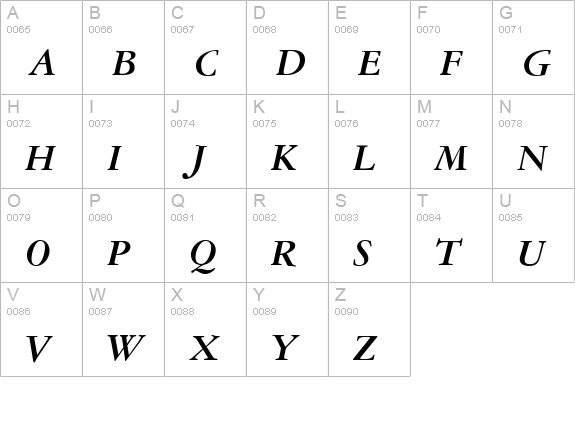
Garamond Reprise OldStyle SSi Bold Font Details
Garamond Reprise OldStyle SSi Bold is a strong, high-contrast variant in the Garamond typeface family \xE2\x80\x94 well suited to headlines, attention-grabbing titles, and strong calls-to-action.
Garamond Reprise OldStyle SSi Bold font is a timeless and classic typeface that exudes elegance and sophistication. With its bold and sturdy design, this font commands attention and adds a touch of professionalism to any project. The Garamond Reprise OldStyle SSi Bold font is perfect for headlines, titles, and logos, as it effortlessly captures the essence of traditional typography with a contemporary twist. Its carefully crafted letterforms feature a unique blend of serifs and strokes, resulting in a harmonious balance between traditional and modern design elements. This font is not only visually striking but also highly versatile. It can be used in a wide range of applications, from print to digital media, making it an ideal choice for designers, advertisers, and creatives alike. Whether you are designing a magazine layout, creating a brand identity, or working on a website, the Garamond Reprise OldStyle SSi Bold font will undoubtedly elevate your project to new heights. One of the best things about the Garamond Reprise OldStyle SSi Bold font is that it is freely available to download at FontsMarket.com. This means that you can access this exceptional typeface without any cost, making it an excellent option for those on a budget or simply looking for high-quality fonts without breaking the bank. So, why settle for ordinary when you can have extraordinary? Download the Garamond Reprise OldStyle SSi Bold font today from FontsMarket.com and unlock a world of design possibilities. Enhance your creations with this remarkable font and let your imagination run wild, knowing that you have access to a top-notch typeface that is both visually stunning and freely accessible.